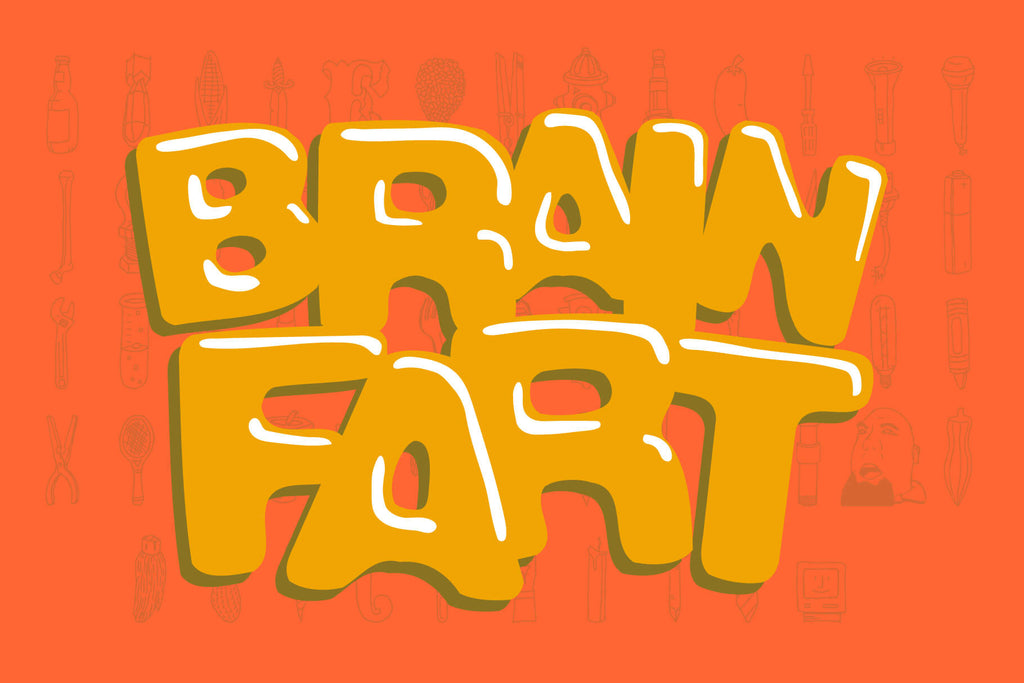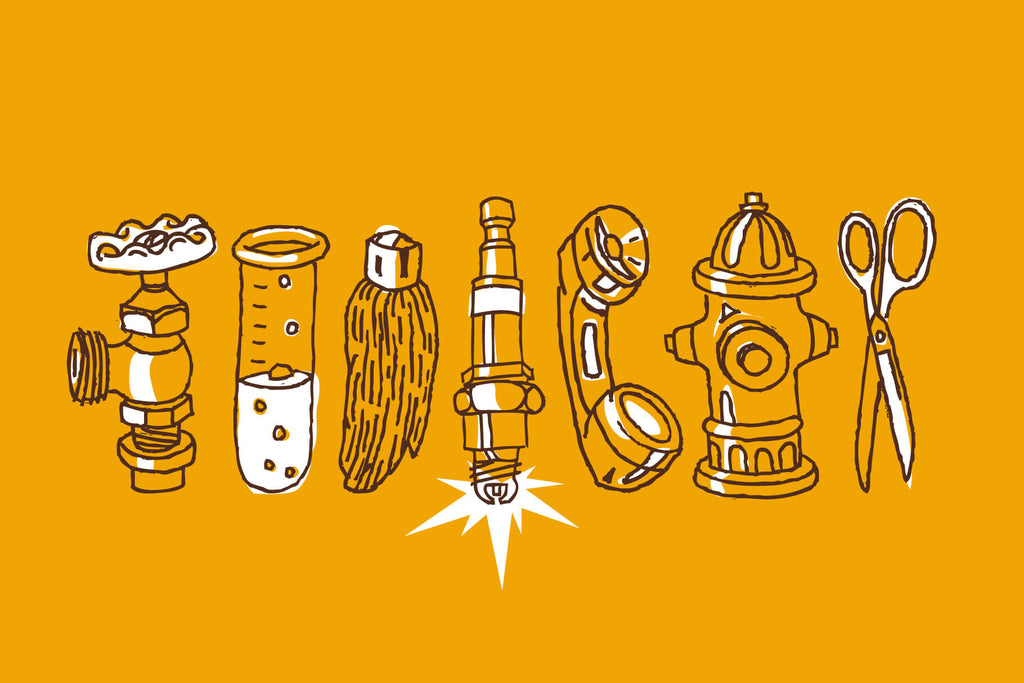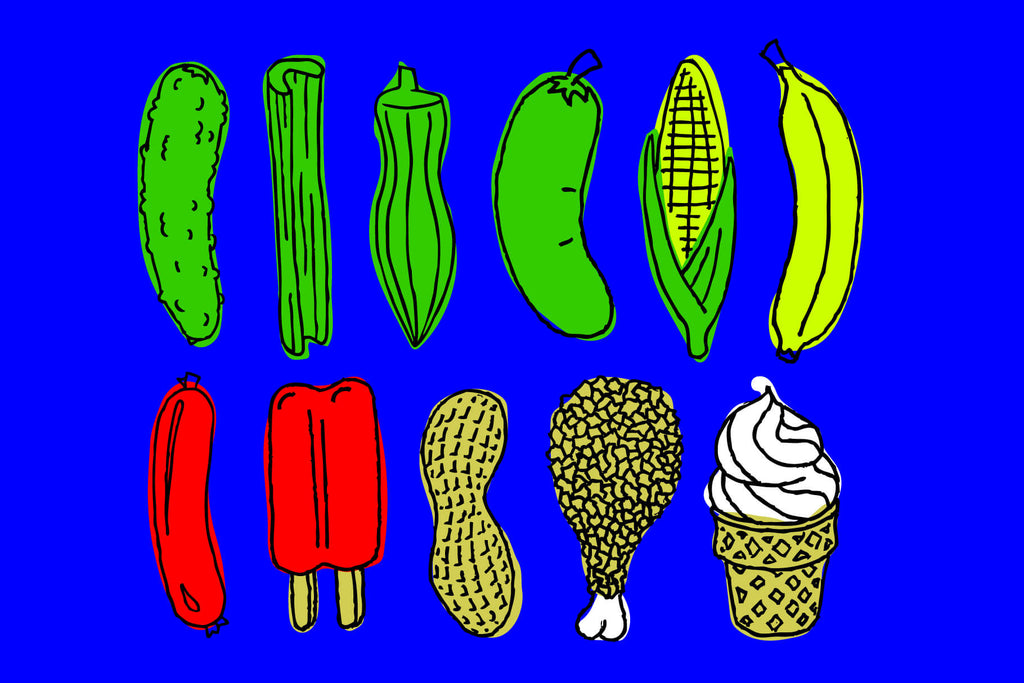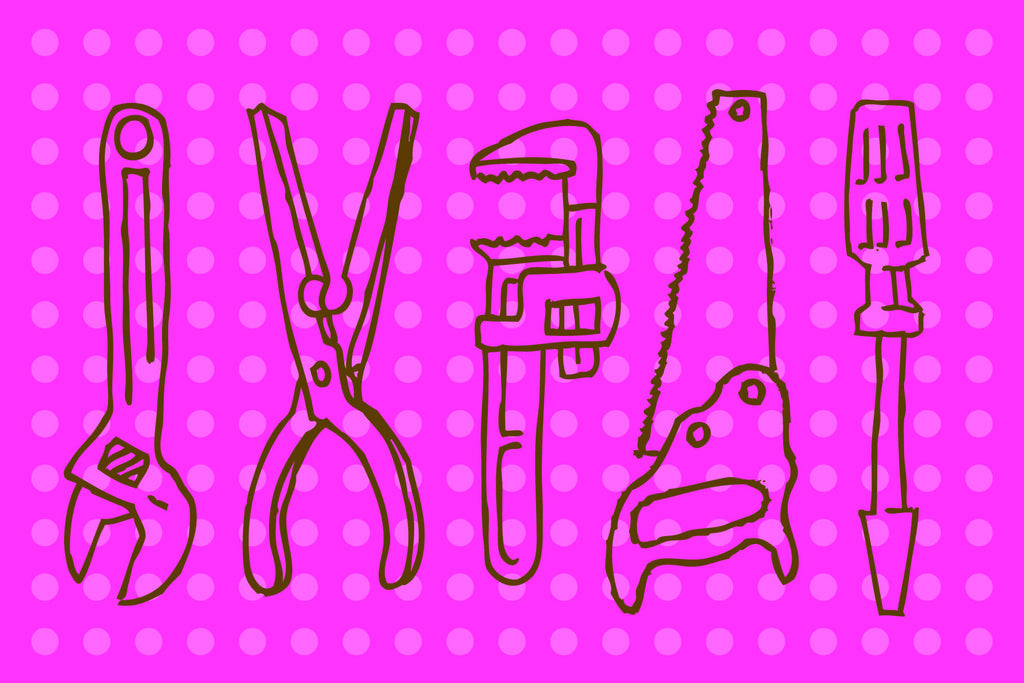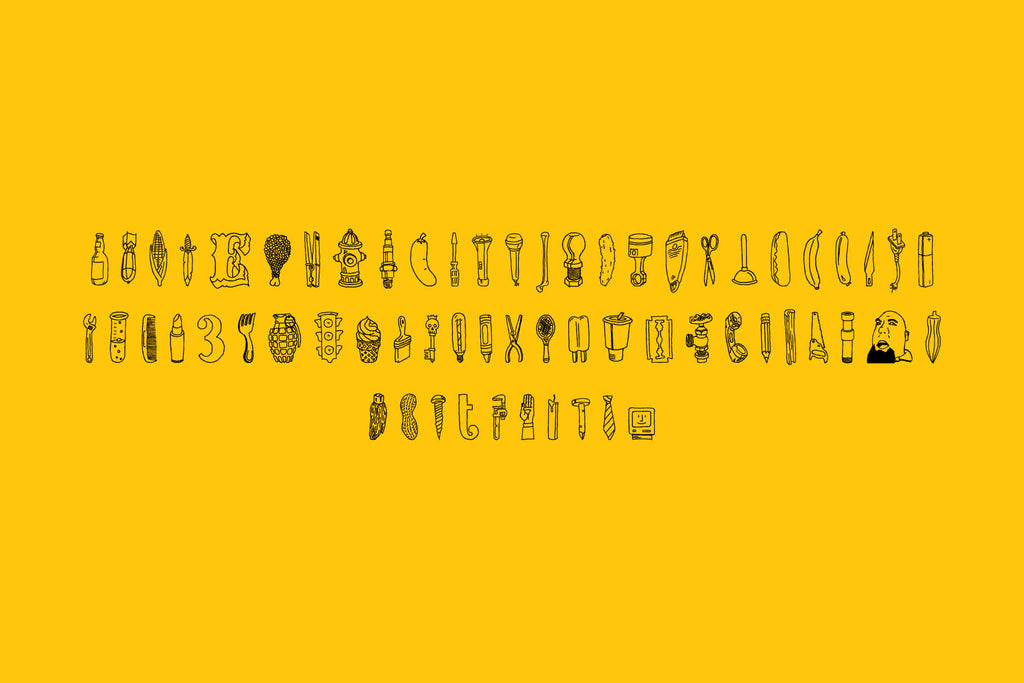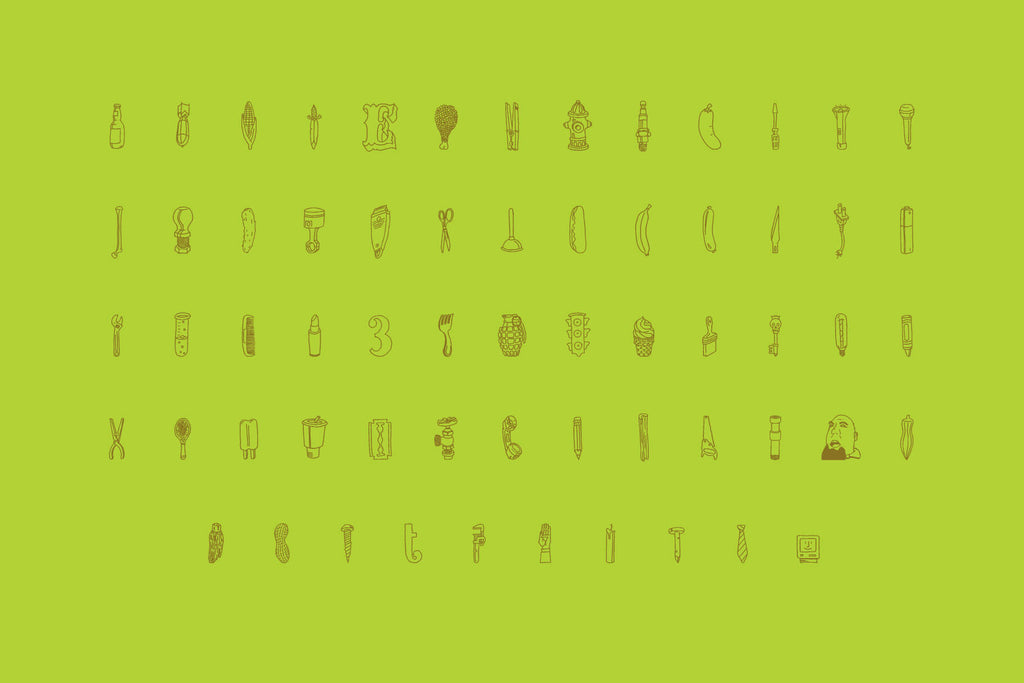
Brain Fart Typeface
Brain Fart is a bold, playful display font built from impulsive ideas, bad decisions, and brilliant accidents. It’s loud, soft-edged, and intentionally imperfect—capturing that split second when a dumb thought turns into something unforgettable.
The letterforms are chunky, inflated, and hand-drawn, with uneven contours and exaggerated curves that feel spontaneous and human. Brain Fart doesn’t try to behave—it leans into humor, absurdity, and visual punch. This is a font designed to interrupt, not politely sit in a layout.
Inspired by doodles, junk drawer objects, street signage, and snack-food energy, Brain Fart thrives in contexts where personality matters more than polish.
If your project needs charm, chaos, and confidence—Brain Fart delivers the idea you didn’t know you needed.